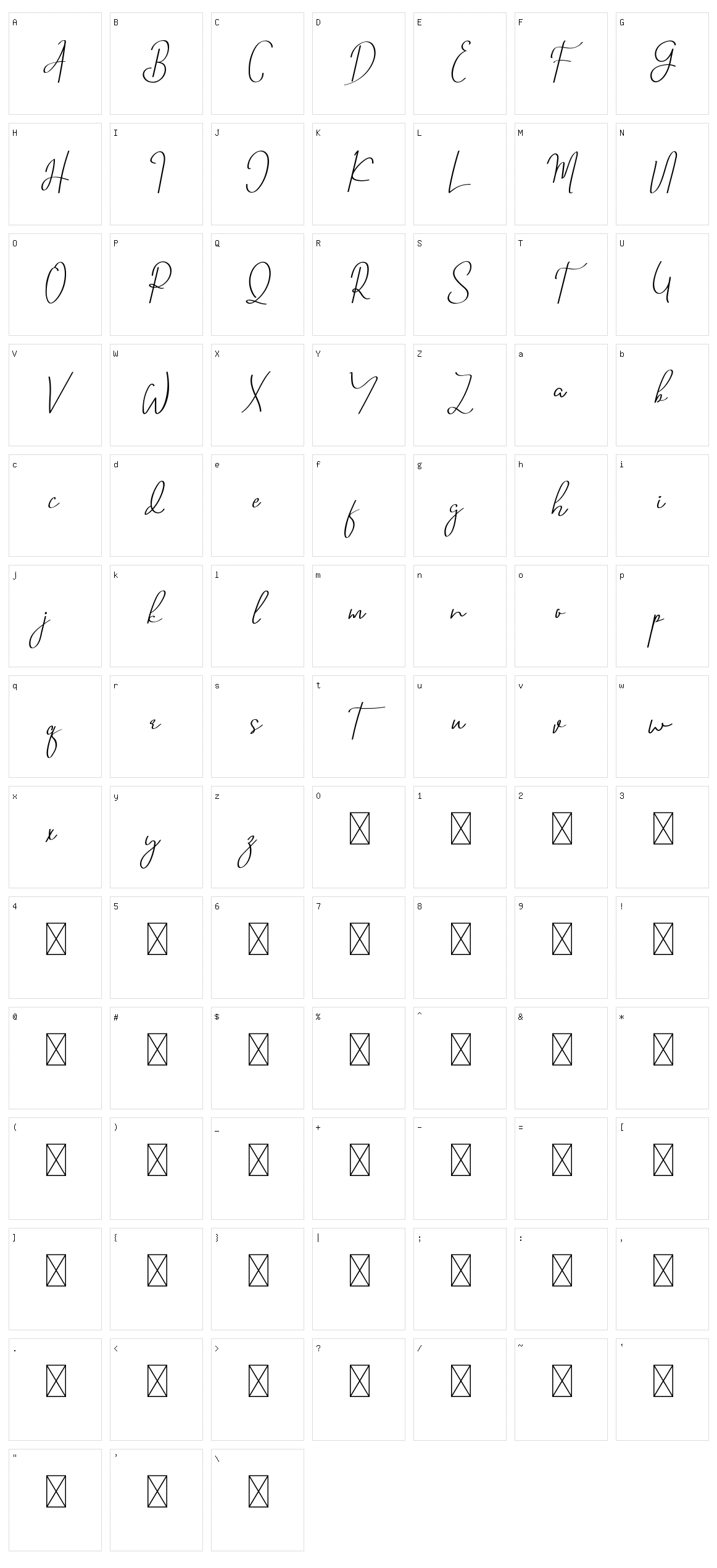
The free font Fingertipz is carefully designed by Edric Studio, showcasing a thoughtful balance of creativity and usability and falls under the Script font style. When you download the ZIP file, it contains only 11.43 KB of font files, making it lightweight and quick to download. Please review the license details below to understand permitted usage and distribution rights. If license information is not available, we recommend using this font for personal projects only or contacting the author directly for commercial usage permissions.